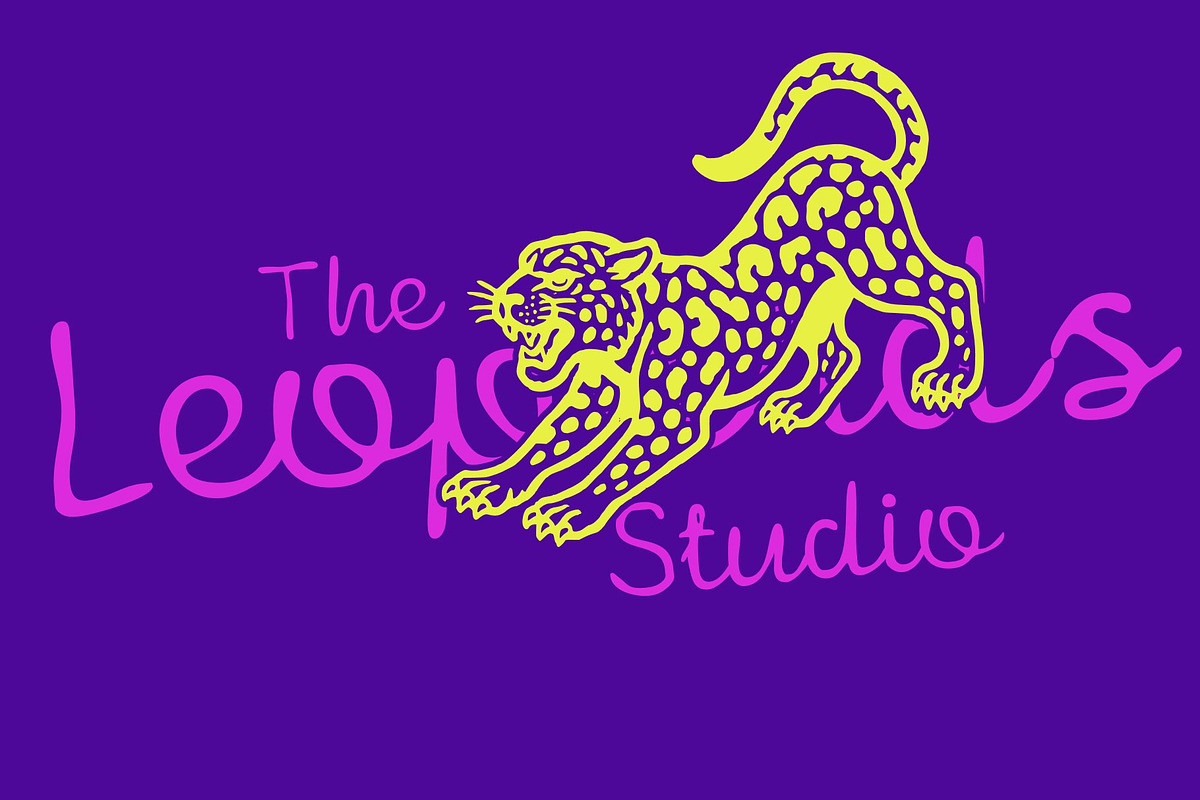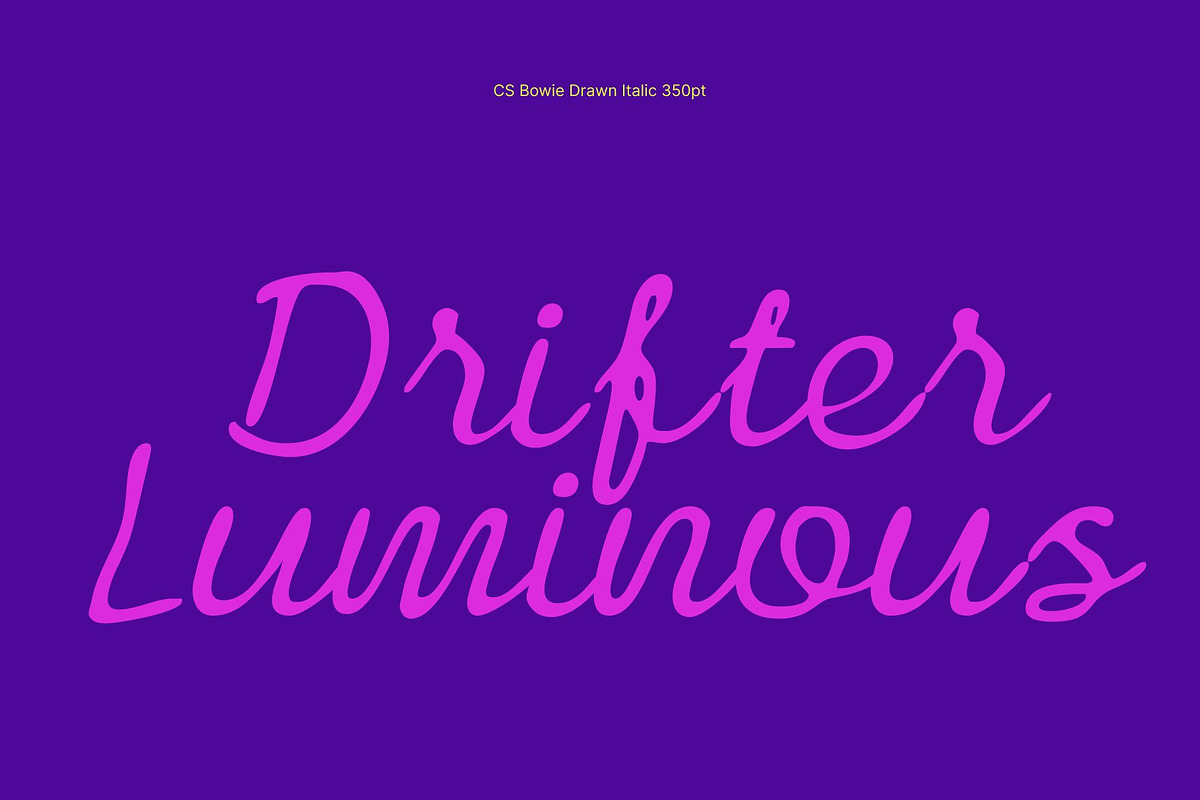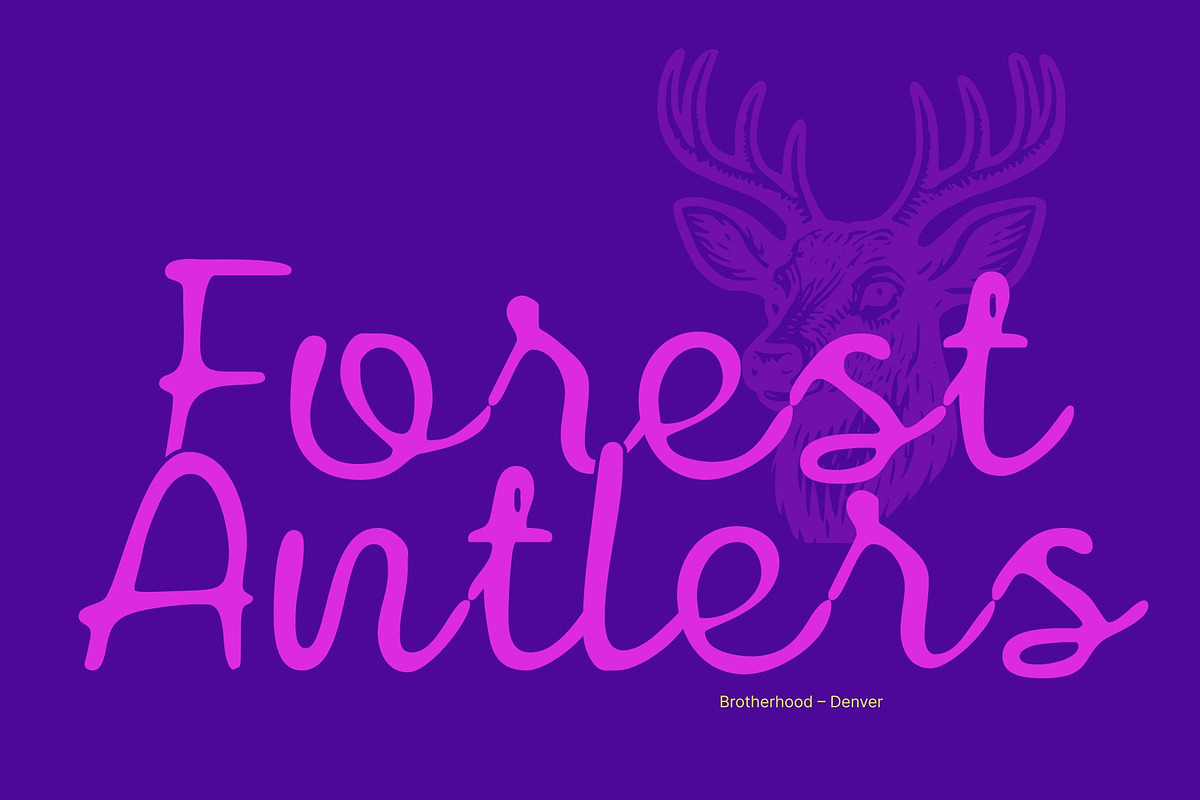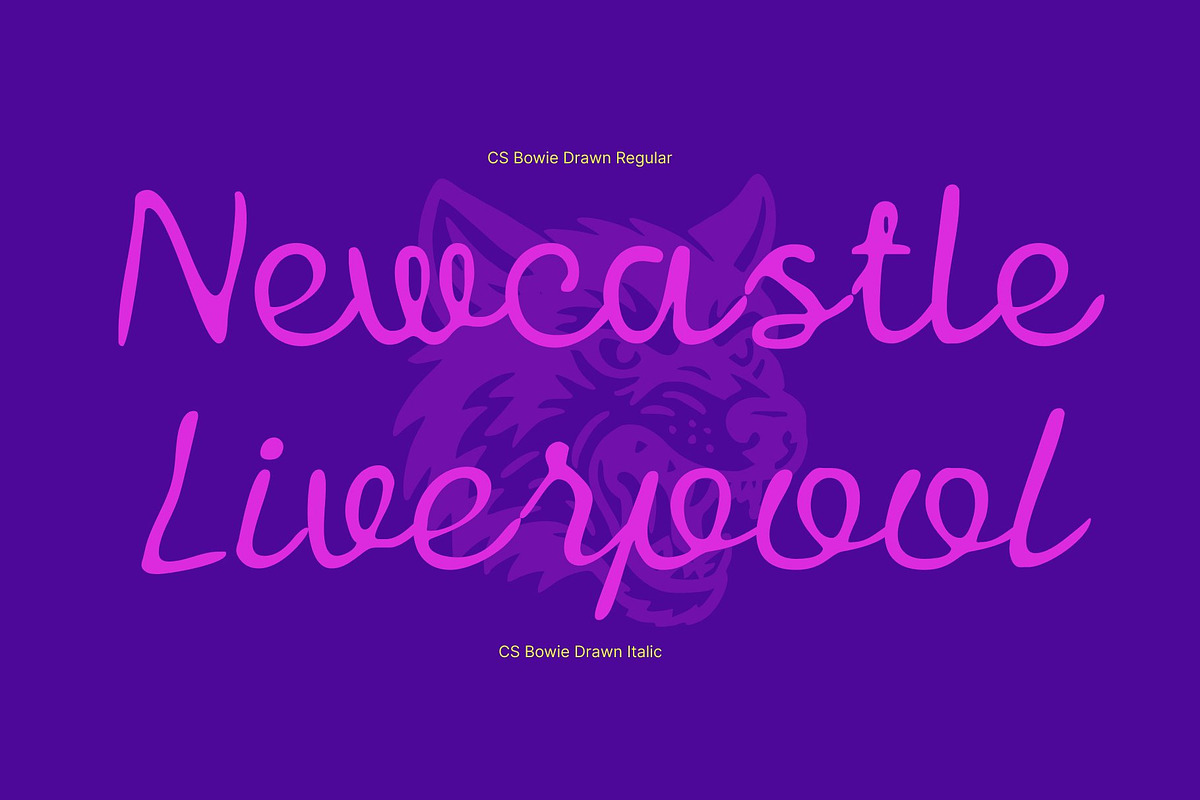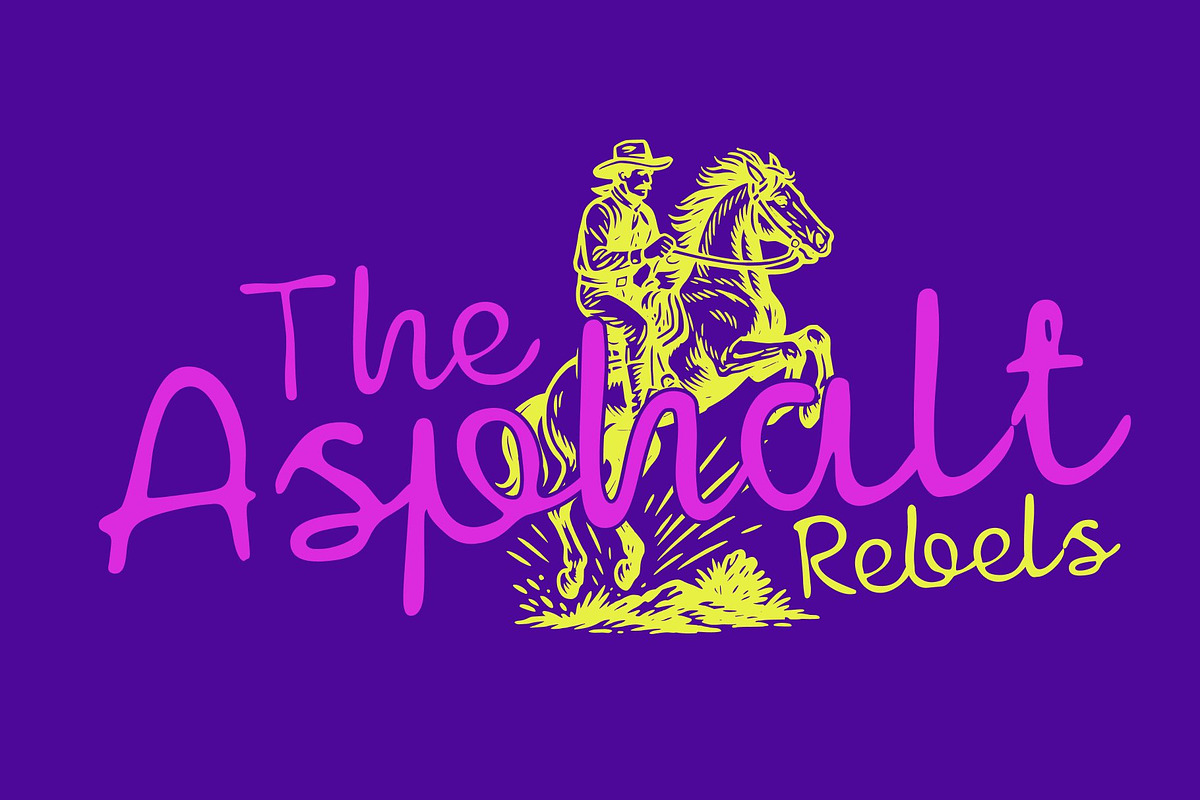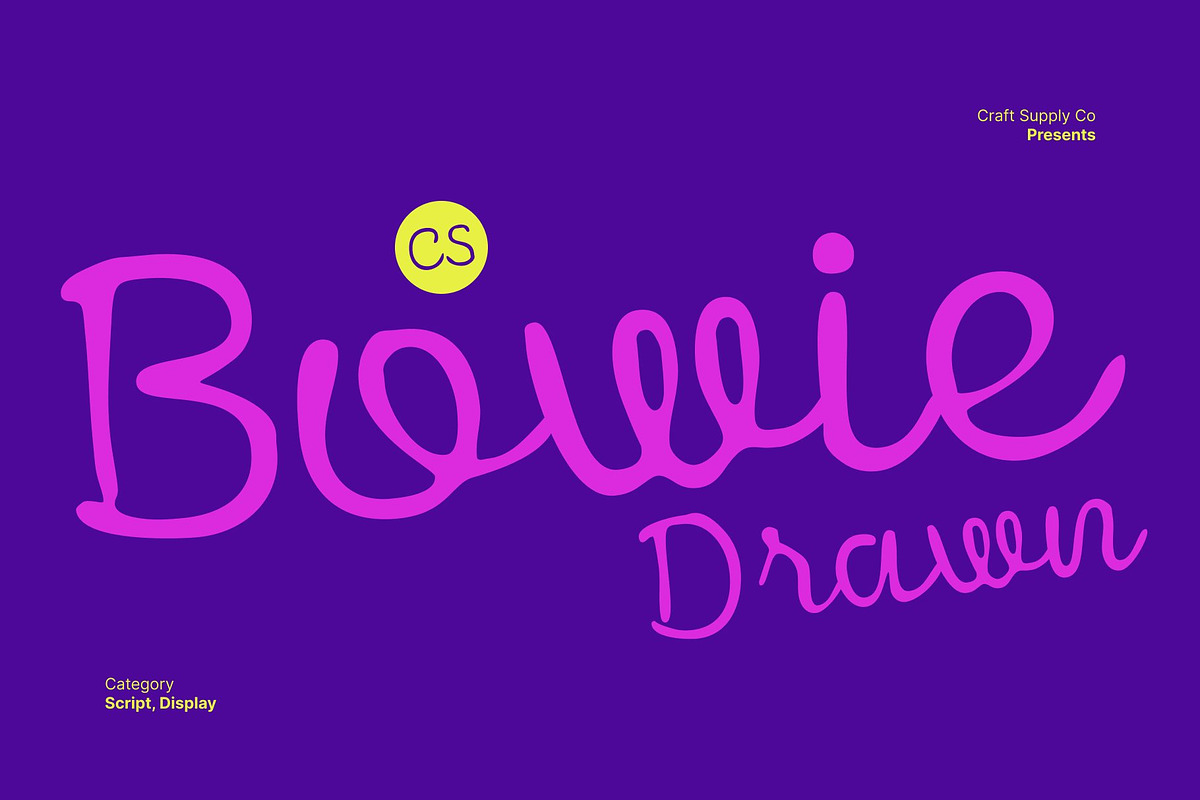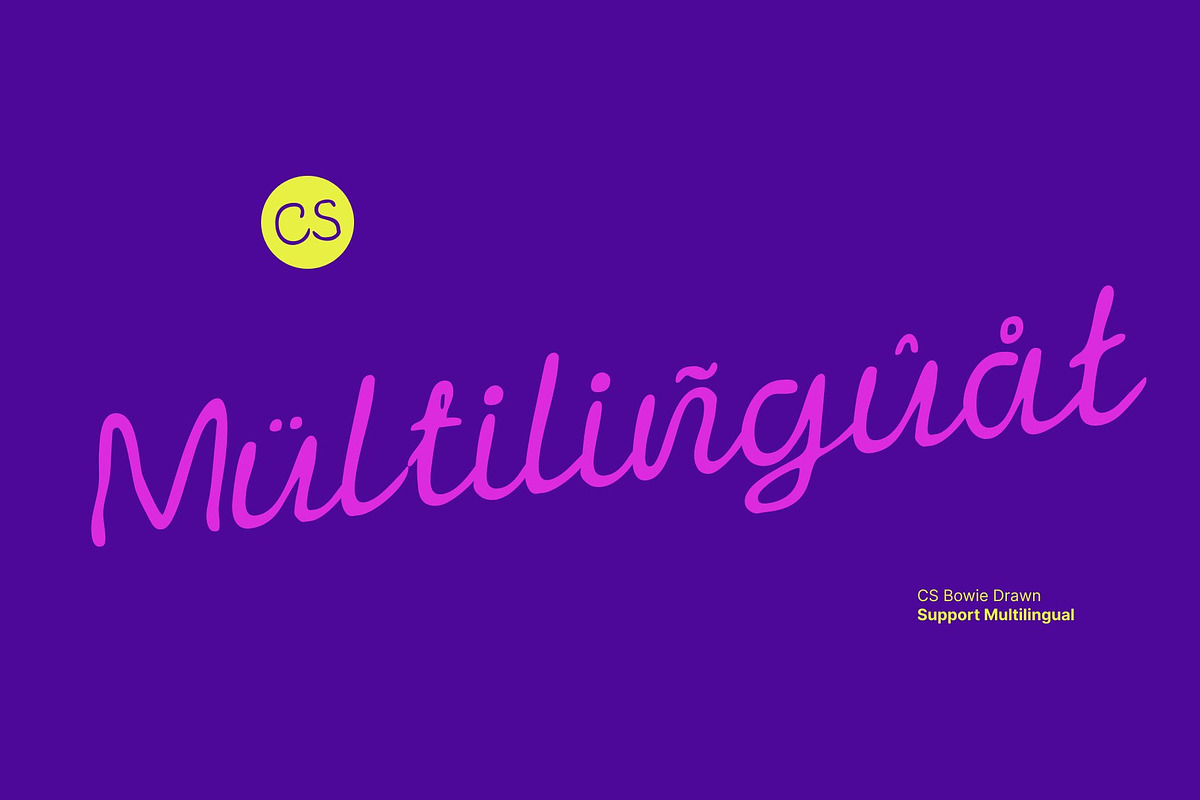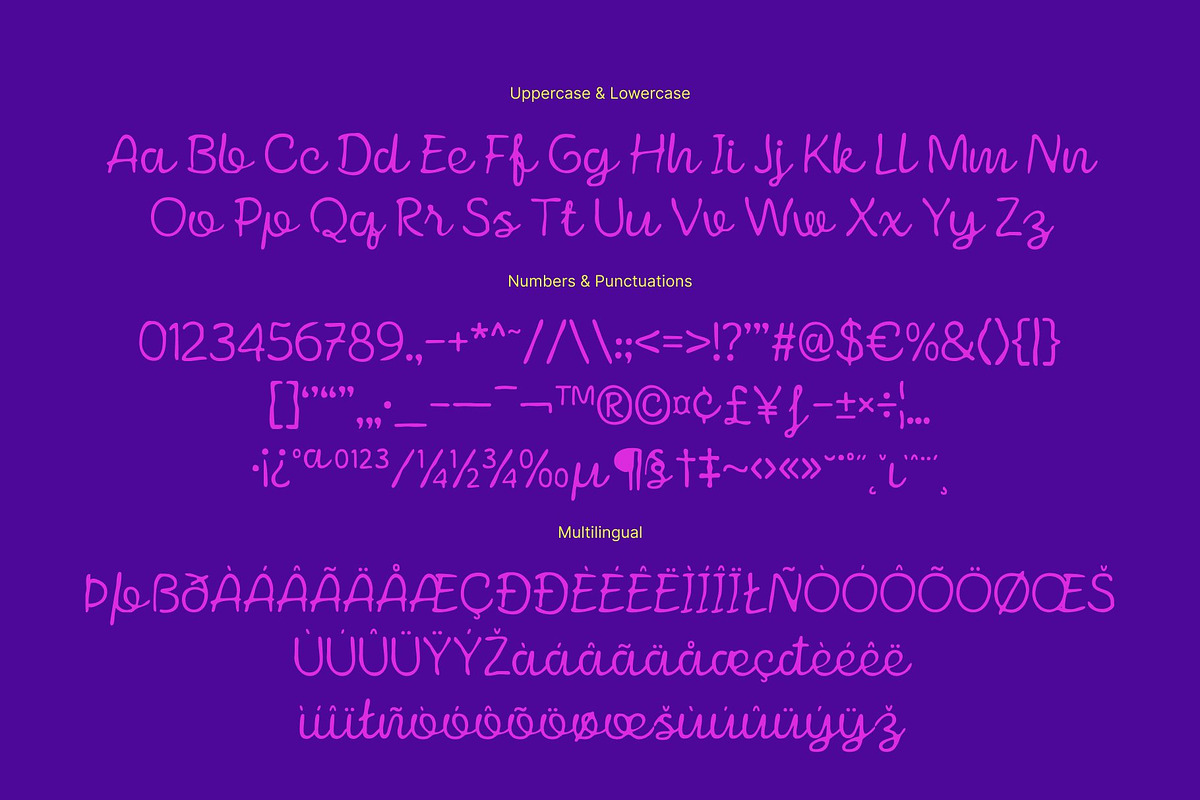
CS Bowie Drawn
CS Bowie Drawn – Artistic Script Font with Expressive Handcrafted Flair
Playful Script with Stylish Swashes This is a lively script font designed with artistic, fun, and flowing shapes. Its energetic curves, stylish swashes, and expressive flourishes create a joyful rhythm that instantly captures attention. Each letter feels dynamic and full of personality, making the font perfect for projects that need charm, creativity, and movement.
Hand-Drawn Texture for Unique Expression What elevates this font is its distinctive drawn effect. The handcrafted texture enhances the script’s natural flow, adding warmth and authenticity to every stroke. This expressive finish makes the font stand out with a unique artistic character ideal for designers seeking a script style that feels personal, organic, and creatively inspired.
Perfect for Invitations and Special Events With its elegant yet playful nature, this font brings a celebratory atmosphere to invitations and event materials. Whether for weddings, parties, or themed celebrations, the font adds sophistication wrapped in artistic flair. Its decorative swashes make headings feel festive, memorable, and emotionally engaging.
A Charming Choice for Branding and Visual Identity This font is also a powerful tool for branding. Its handcrafted elegance works beautifully for boutique logos, creative studios, lifestyle products, and packaging that aims to look both premium and approachable. The font’s expressive style ensures that every brand message feels unique, inspiring, and full of personality.